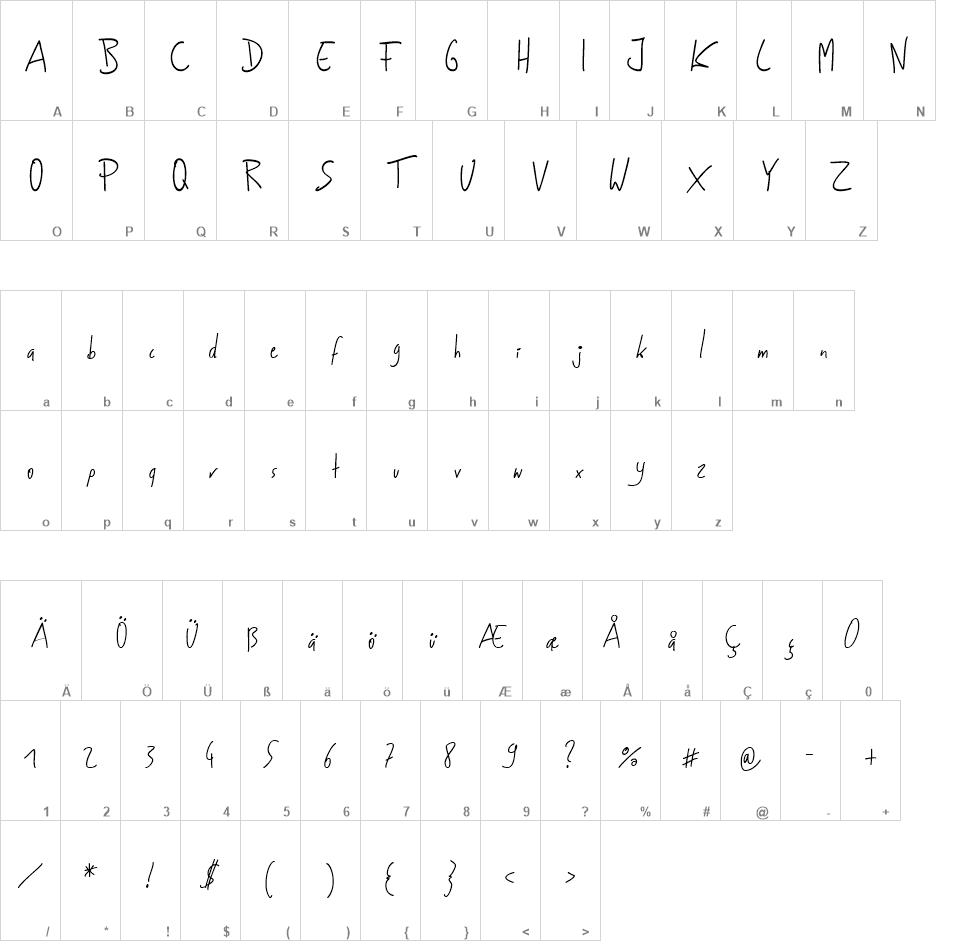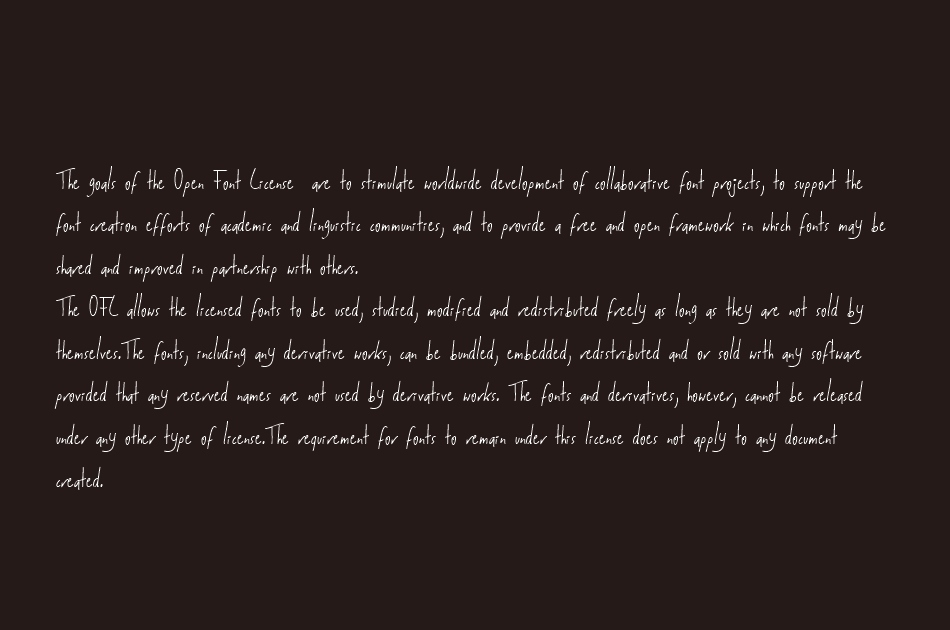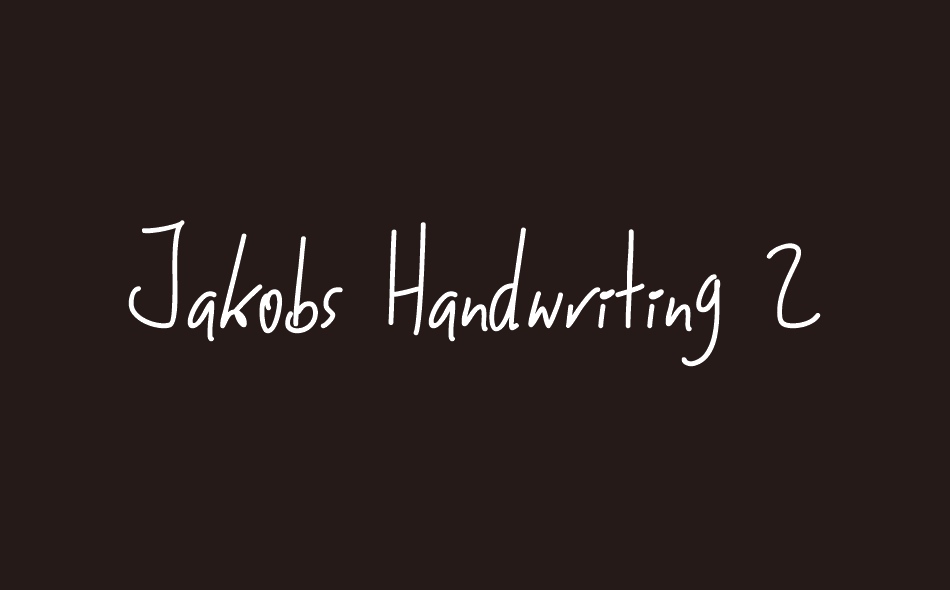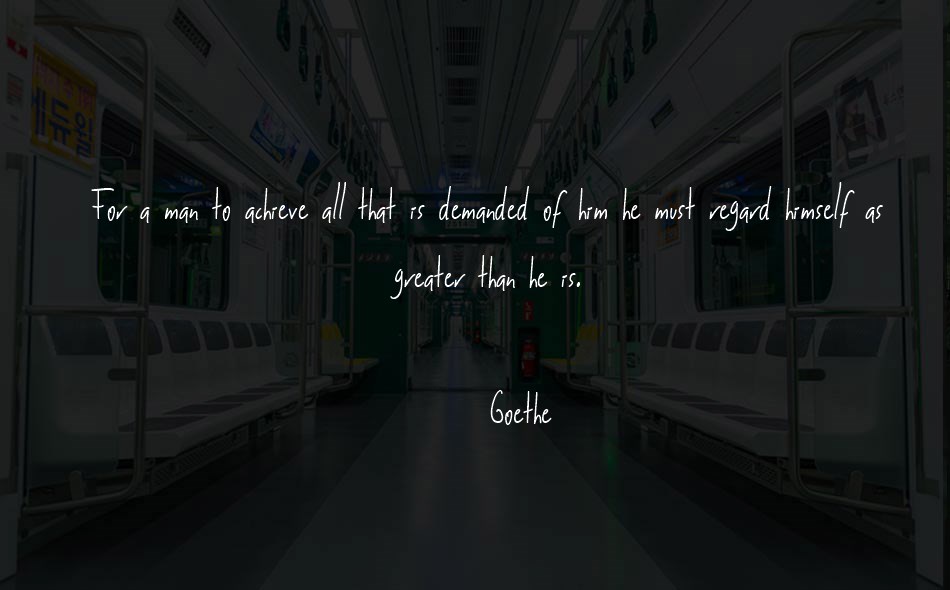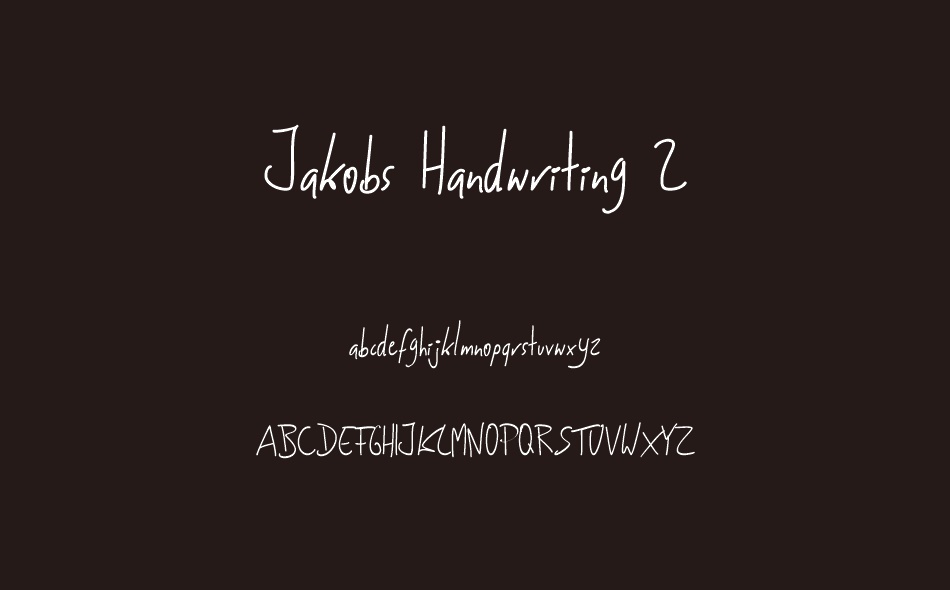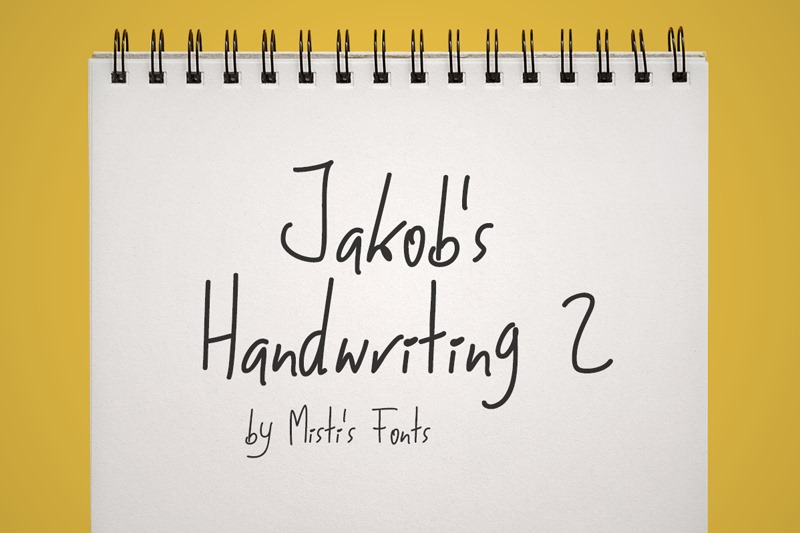
Jakobs Handwriting 2 font
Jakobs Handwriting 2 is a stylish and natural handwritten font. It will elevate a wide range of crafting ideas, from cards, to branding, labels and much more. Add it confidently to your favorite creations and let yourself be amazed by the outcome generated.